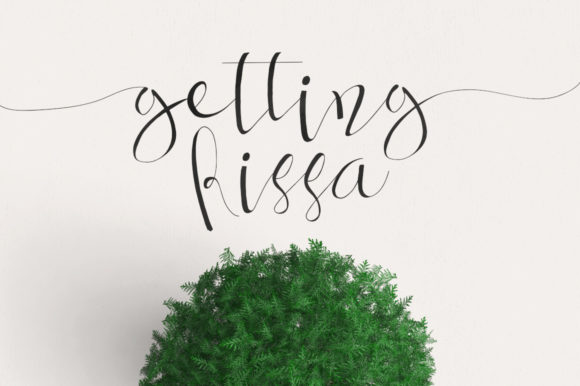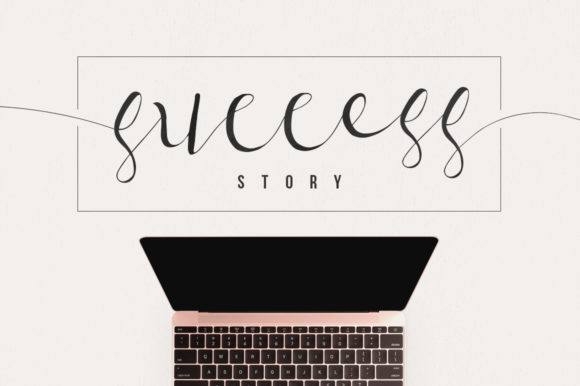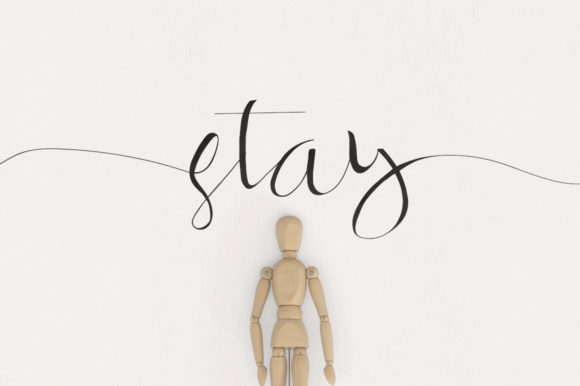
Blesd Font: Elevate Your Designs with Elegance and Relaxation
In the world of typography, fonts play a crucial role in conveying the tone and personality of a design. For designers and crafters looking to add a touch of elegance and relaxation to their projects, the Blesd Font is an excellent choice. This beautifully crafted handwritten font is designed to transport you to a world of serenity and creativity, making it perfect for a wide range of applications.
The Essence of Blesd Font
Blesd is a relaxed and elegant handwritten font that exudes a sense of calmness and sophistication. Its flowing and dreamy characteristics make it an ideal choice for designers seeking to create visually stunning and emotive designs. Whether you’re working on a branding project, a wedding invitation, or a craft project, Blesd Font is sure to impress.
Key Features of Blesd Font
- Relaxed and Elegant: Blesd Font boasts a unique blend of relaxation and elegance, making it perfect for designs that require a touch of sophistication.
- Handwritten Style: The font’s handwritten style gives it a personal and organic feel, adding a touch of warmth to any design.
- Flowing and Dreamy: Blesd Font’s flowing and dreamy characteristics make it perfect for creating designs that evoke a sense of calmness and serenity.
- Versatile: This font is suitable for a wide range of applications, including branding, advertising, packaging, and more.
Use Cases for Blesd Font
Blesd Font is an incredibly versatile font that can be used in various design projects. Here are some use cases to get you started:
- Branding and Logo Design: Use Blesd Font to create a unique and memorable brand identity that reflects your company’s values and personality.
- Wedding and Event Invitations: Add a touch of elegance and sophistication to your wedding or event invitations with Blesd Font.
- Packaging Design: Use Blesd Font to create eye-catching packaging designs that stand out on store shelves.
- Digital and Print Advertising: Blesd Font is perfect for creating visually stunning digital and print ads that capture the attention of your target audience.
- Crafting and DIY Projects: Add a personal touch to your crafting and DIY projects with Blesd Font, perfect for creating handmade cards, gift tags, and more.
Tips for Using Blesd Font
To get the most out of Blesd Font, here are some tips to keep in mind:
- Pair with Other Fonts: Experiment with pairing Blesd Font with other fonts to create a unique and visually appealing design.
- Adjust Font Size and Color: Adjust the font size and color to suit your design needs and ensure optimal readability.
- Use in Combination with Images: Use Blesd Font in combination with high-quality images to create a stunning visual effect.
In conclusion, Blesd Font is a beautifully crafted handwritten font that offers a unique blend of relaxation and elegance. Its flowing and dreamy characteristics make it perfect for designers and crafters looking to create visually stunning and emotive designs. With its versatility and range of use cases, Blesd Font is sure to become a staple in your design toolkit.